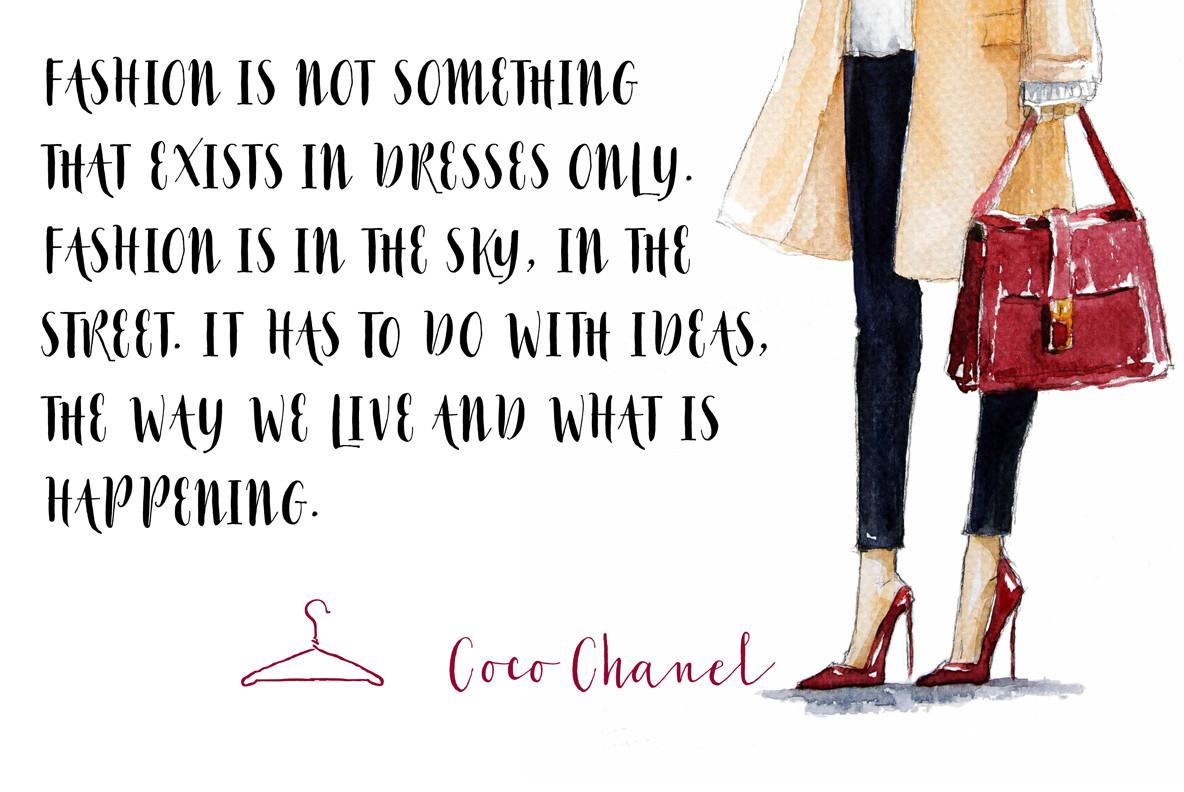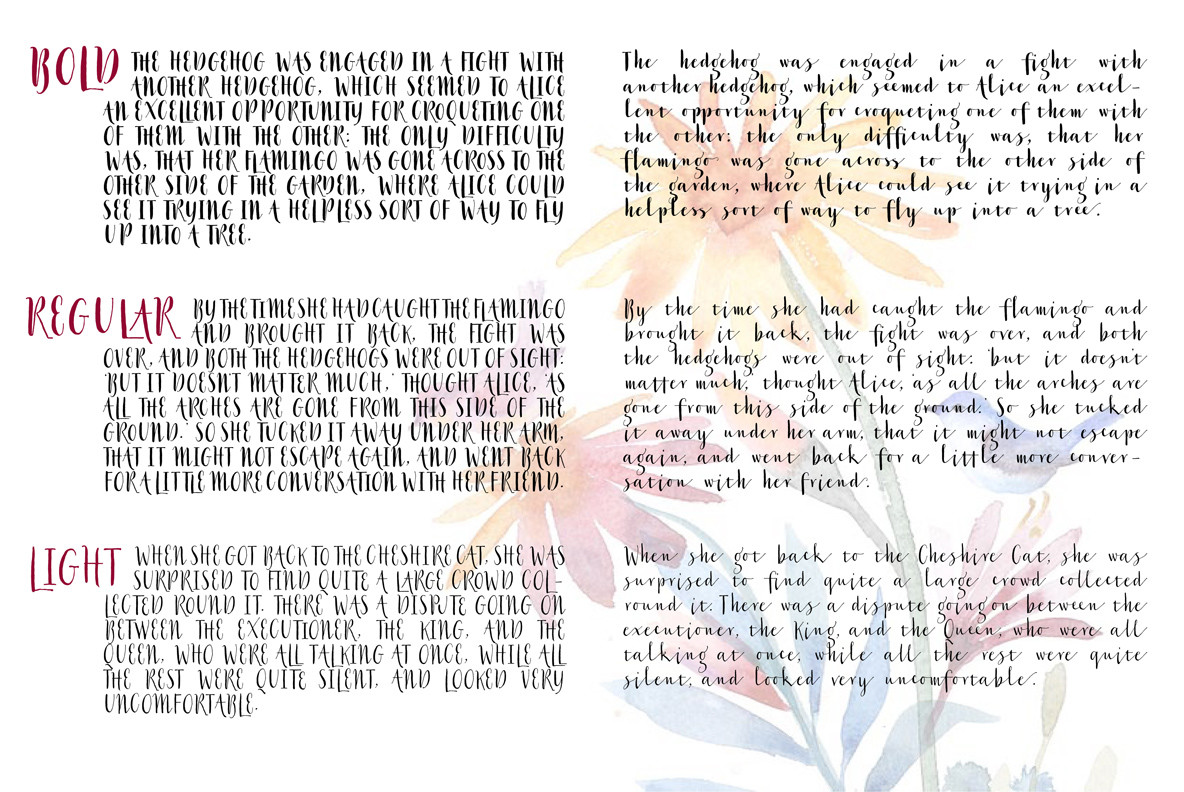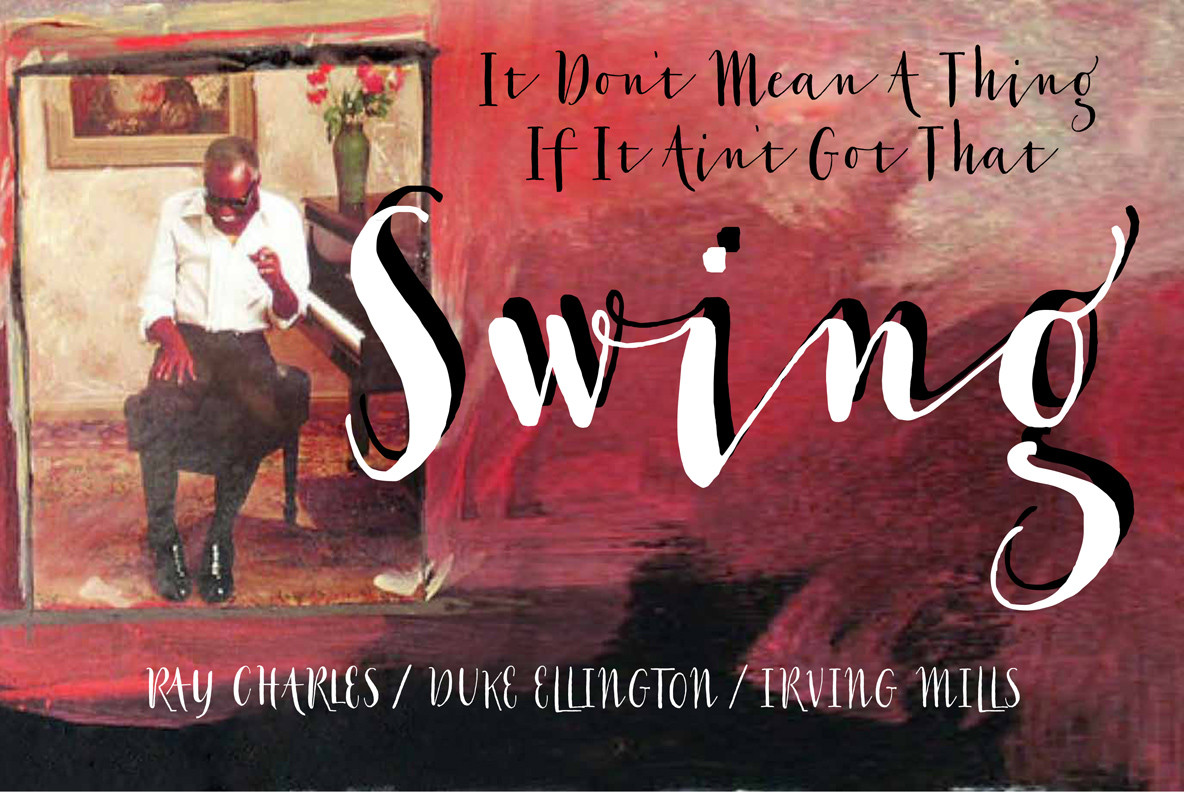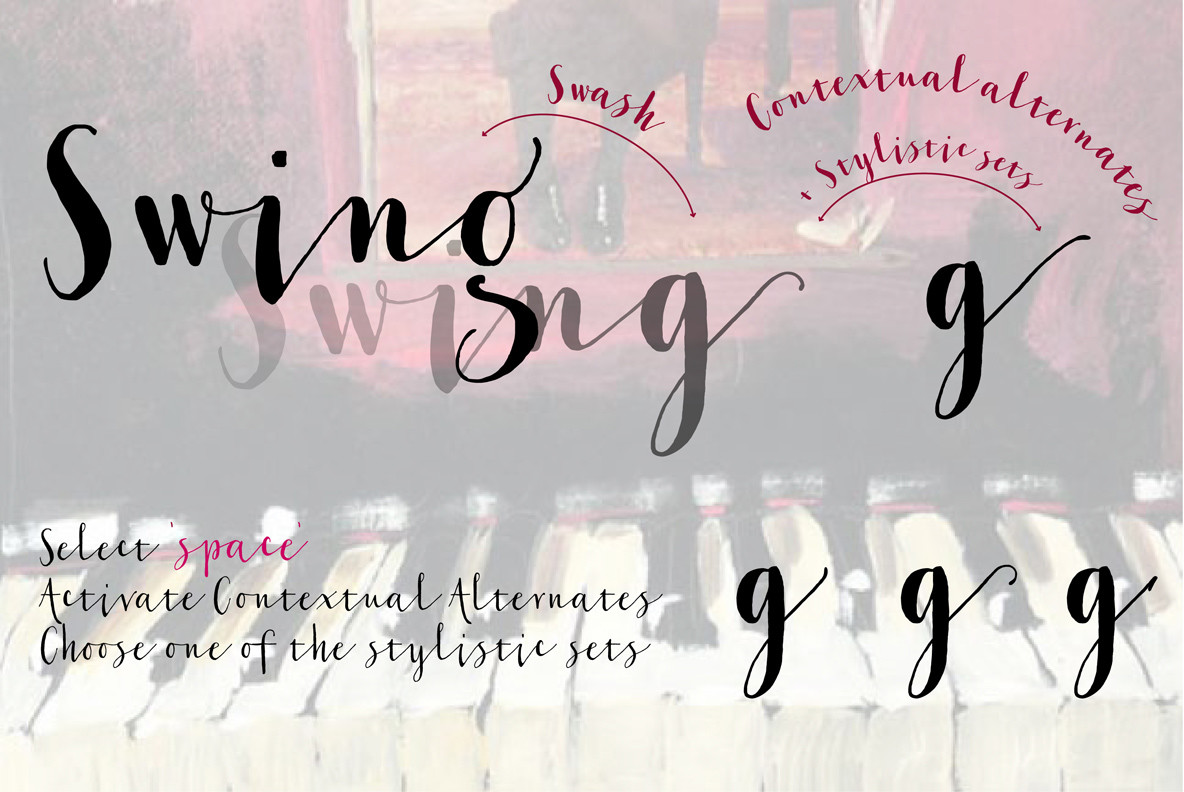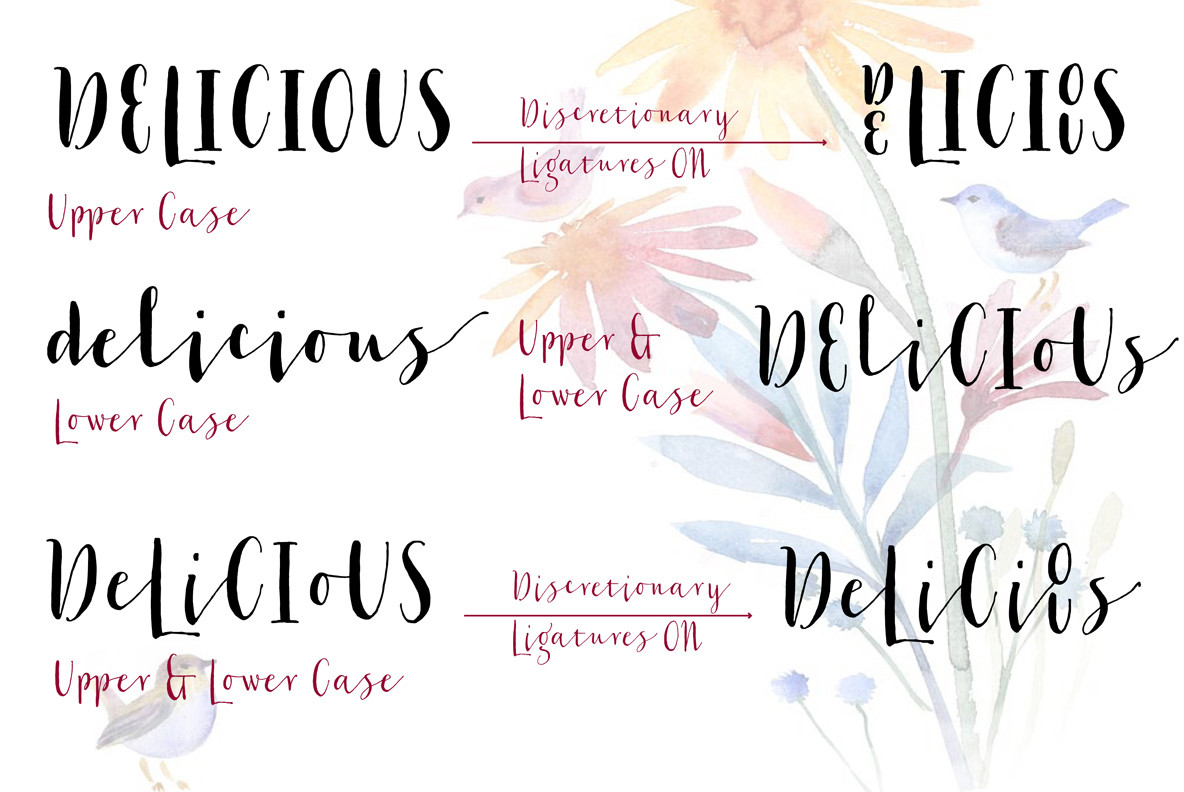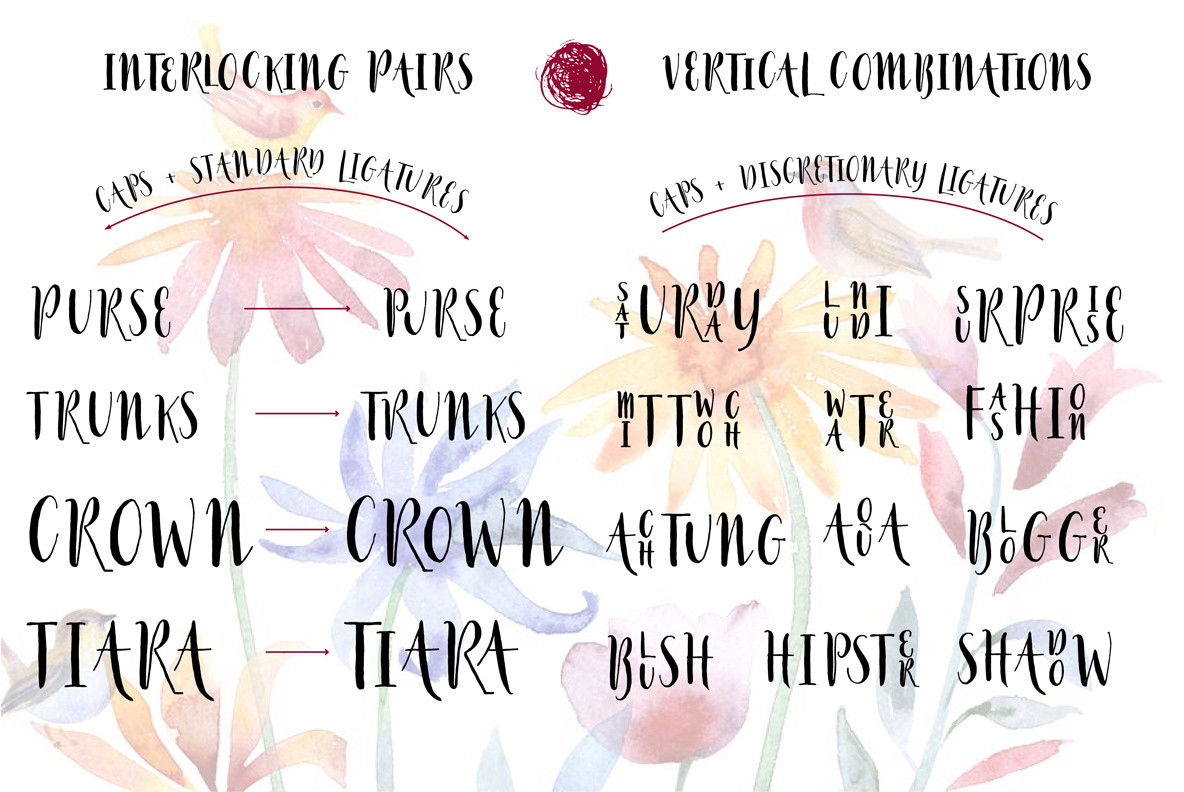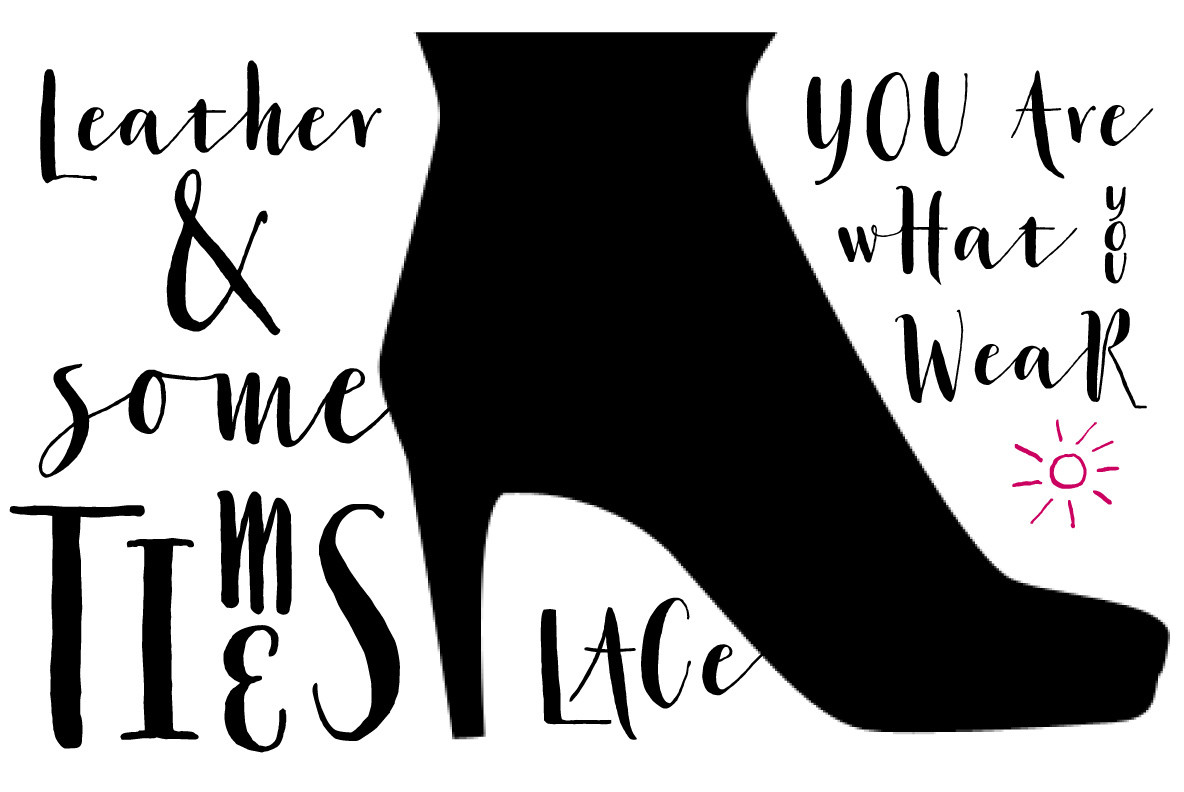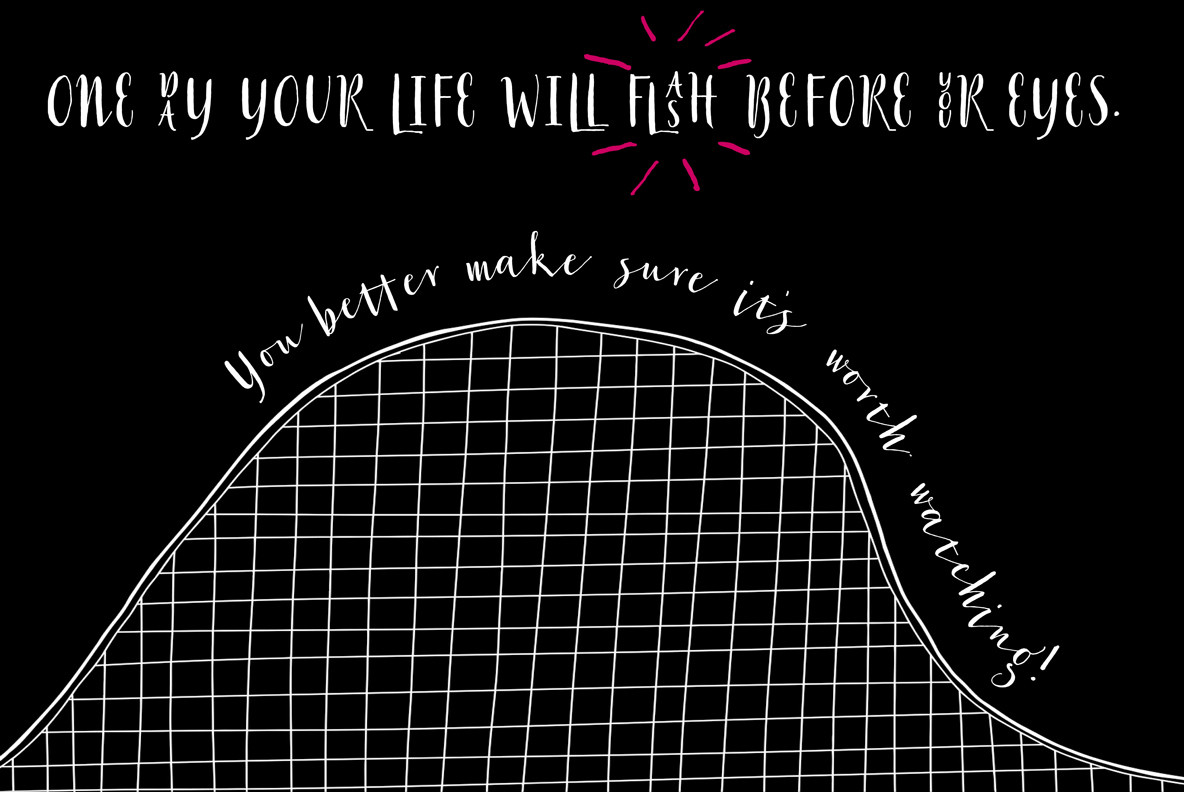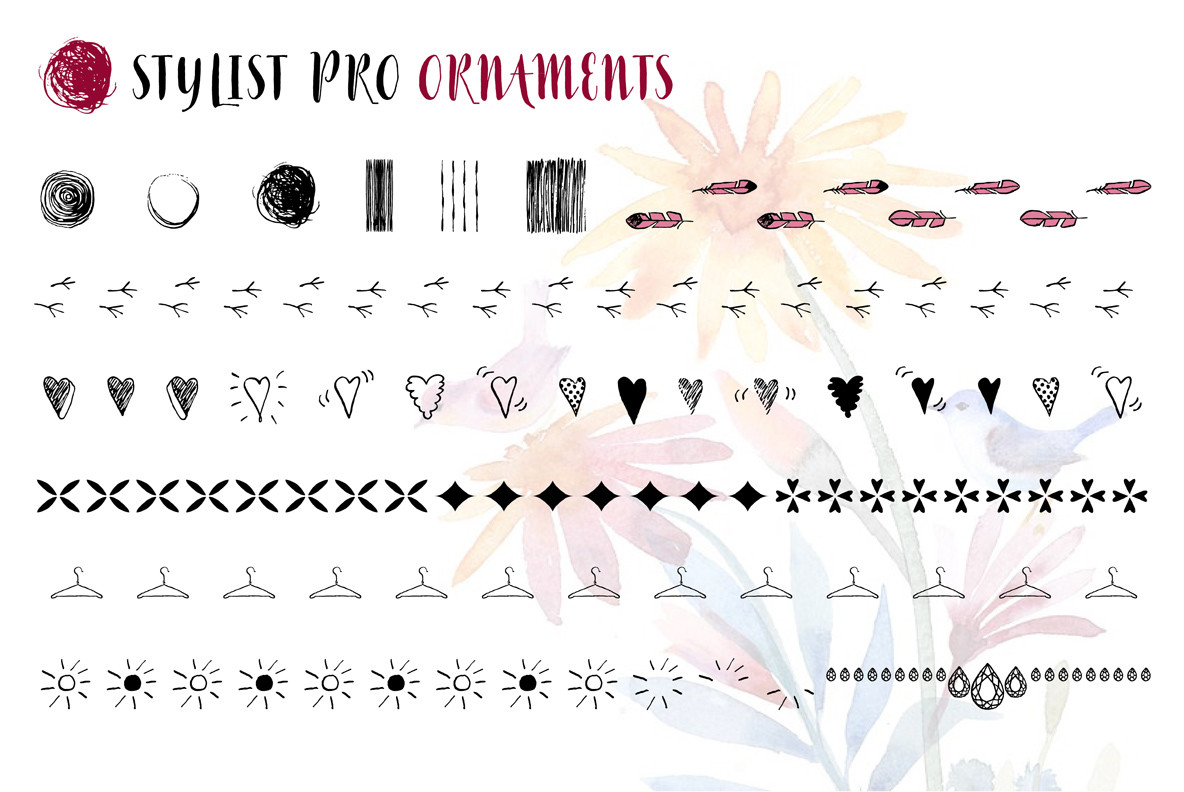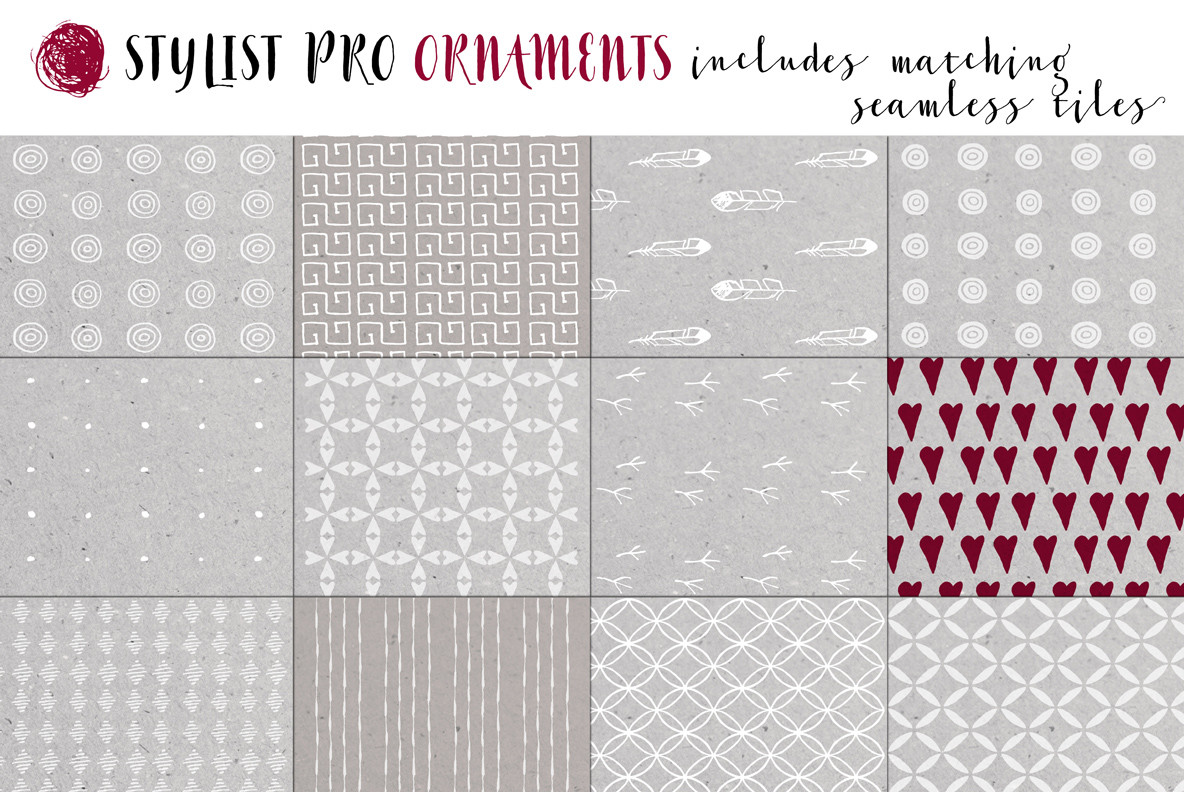
Stylist Pro Font
At first glance Stylist Pro may look like just another dip pen calligraphy font family. But there is much more than meets the eye. How Many fonts do you know that allow you to connect lowercase letters to uppercase letters in addition to the other way around? Meet Stylist Pro, a font family with interesting styling tricks up her sleeve.
You can mix upper case letters with lower case letters any way you please, and get interesting results. When using uppercase, you can toggle discretionary ligatures on and off to get your hands on some beautiful top to bottom letter combinations. Choose Standard ligatures to activate interlocking pairs for capitals.
Stylist Pro comes in Light, Regular, Bold, Ornaments and Extra (Free)! Stylist Ornaments has many seamless tiles, matching shapes and ink doodles to choose from. Stylist Extra is a free little font that has charming frames and shapes to use as a background for the vertical ligatures. Enjoy!